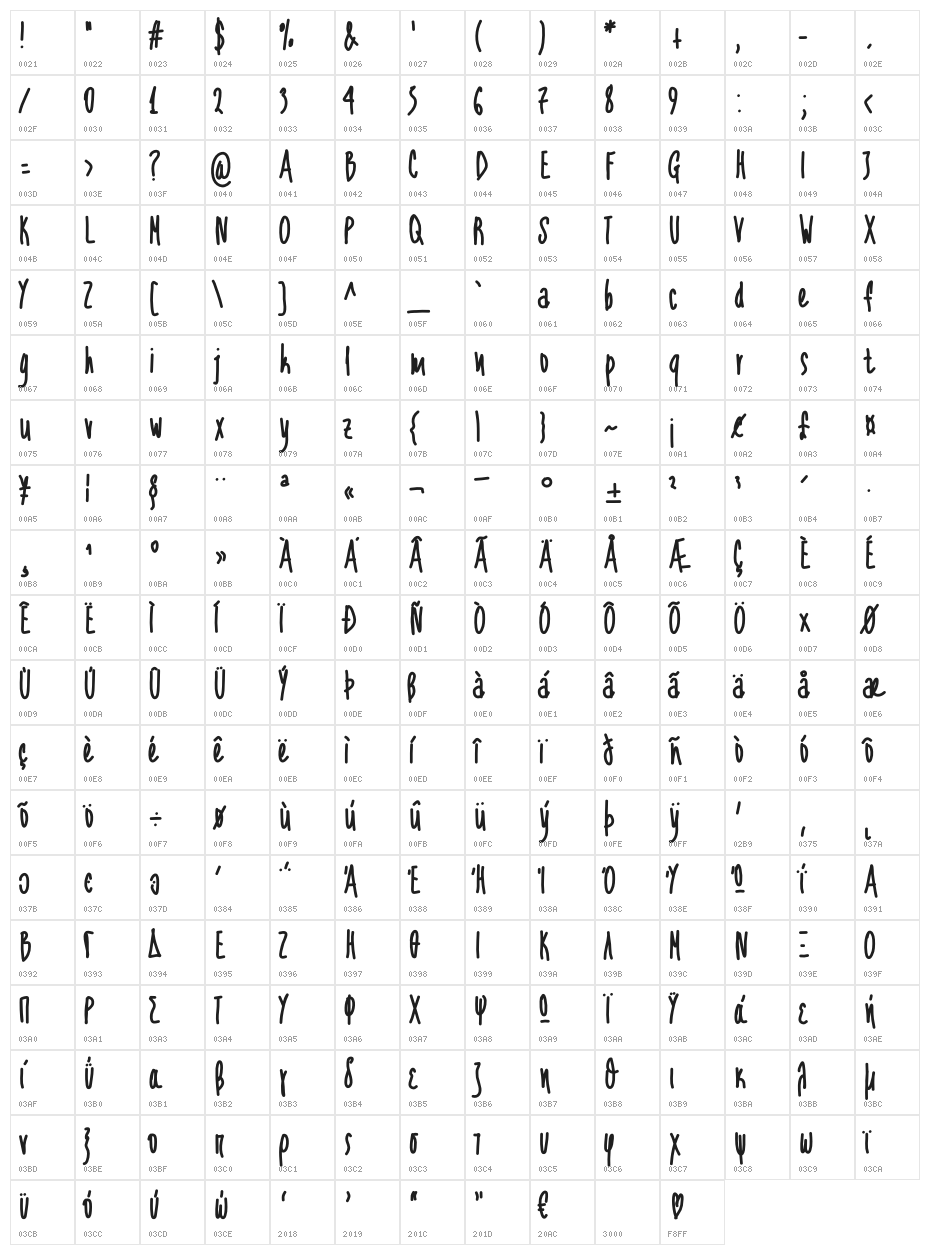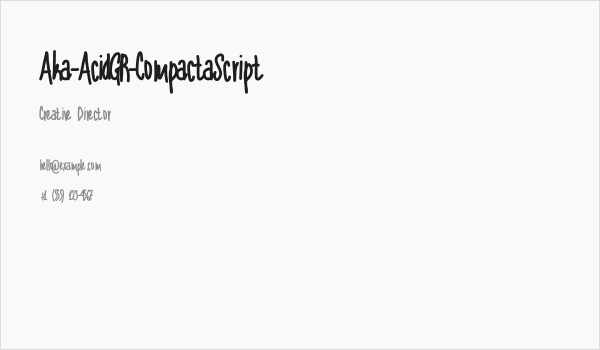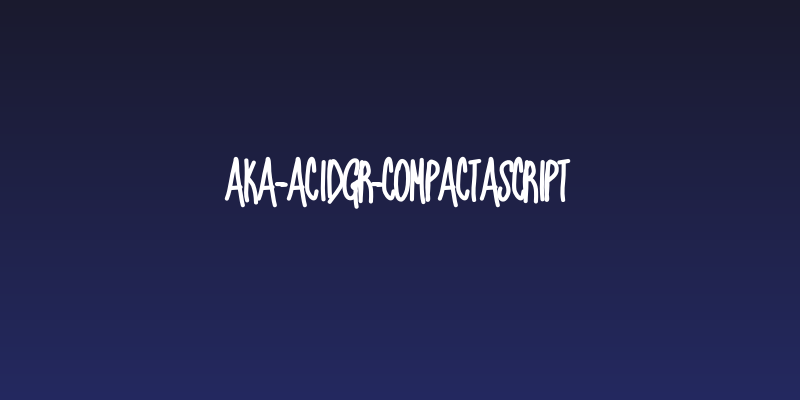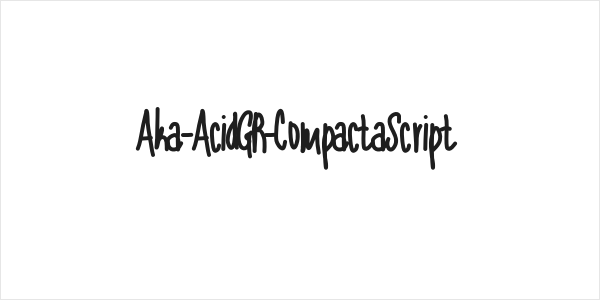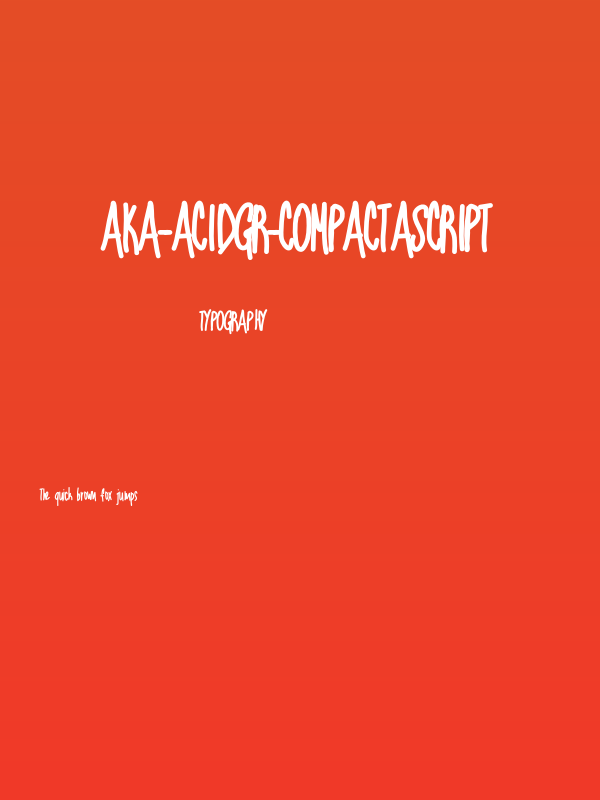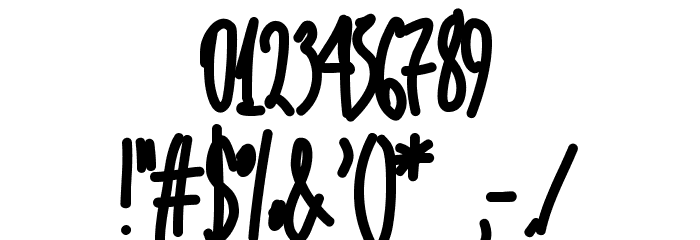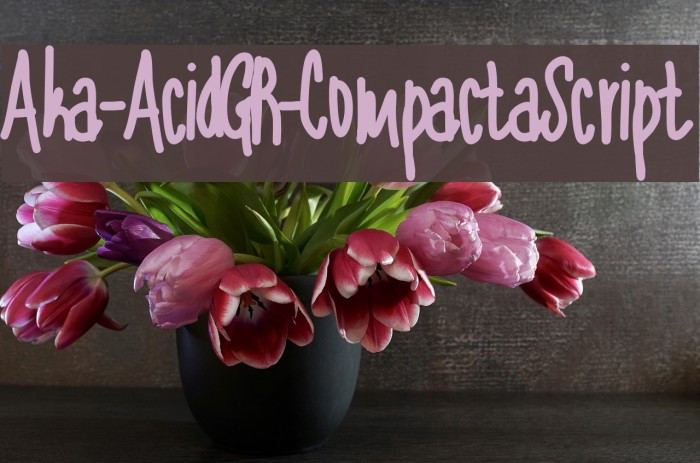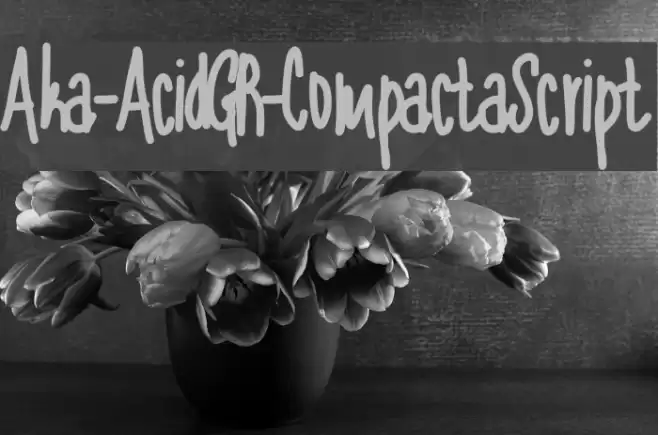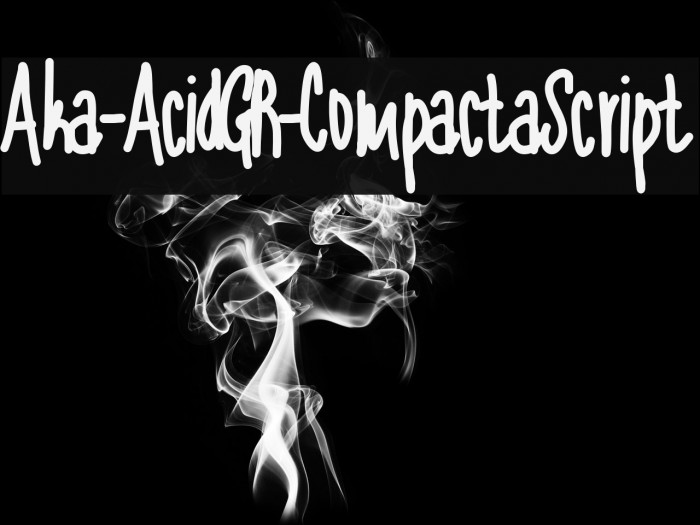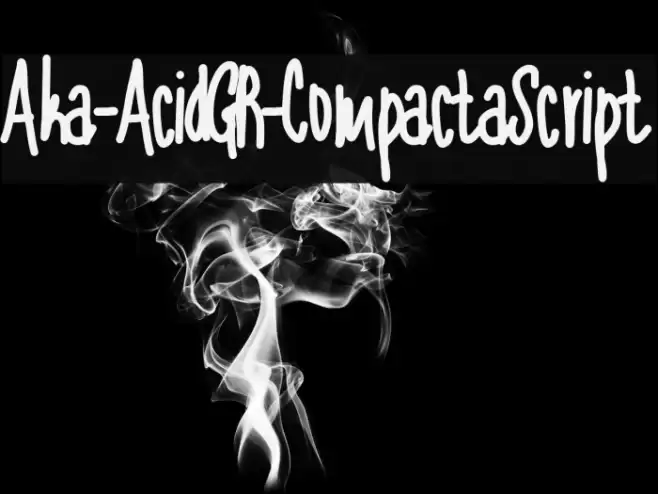
Aka-AcidGR-CompactaScript Font
Aka-AcidGR-CompactaScript Description
This font features a bold and expressive handwritten style, characterized by its thick strokes and playful, informal appearance. The letters are slightly slanted, giving a dynamic and energetic feel. The uppercase and lowercase letters maintain a consistent style, with rounded edges and a casual flow. Numbers and special characters are equally bold, maintaining the overall aesthetic. The font's unique personality makes it stand out, perfect for projects that require a touch of creativity and individuality.
| Use Case | Logos, Headlines, Posters |
| Proposed Projects | Ideal for creative projects such as posters, invitations, greeting cards, and branding materials that require a personal touch. |